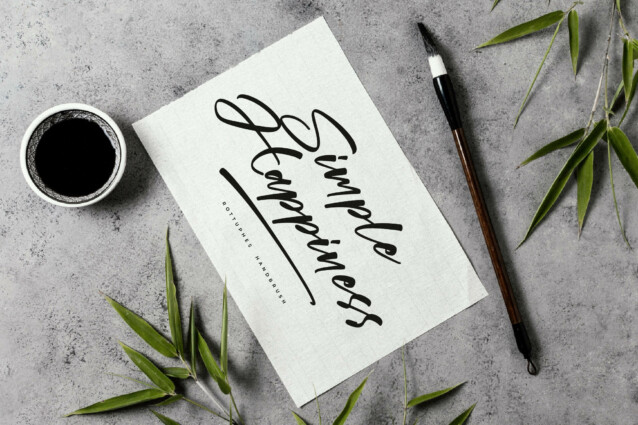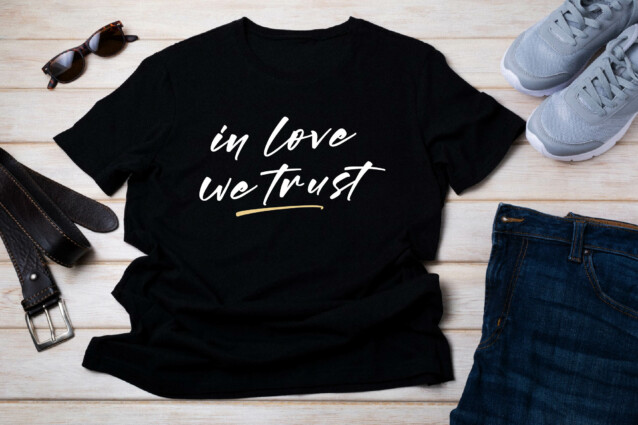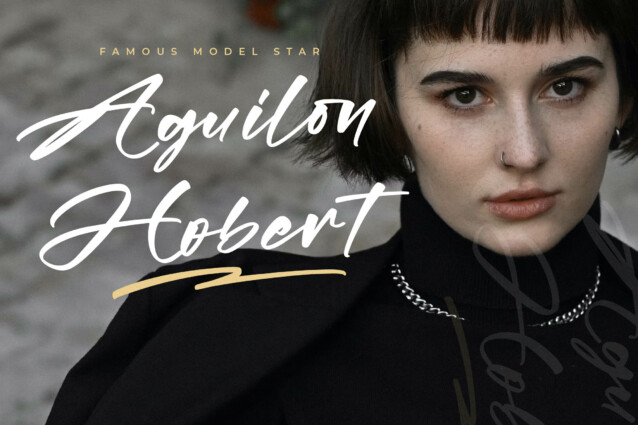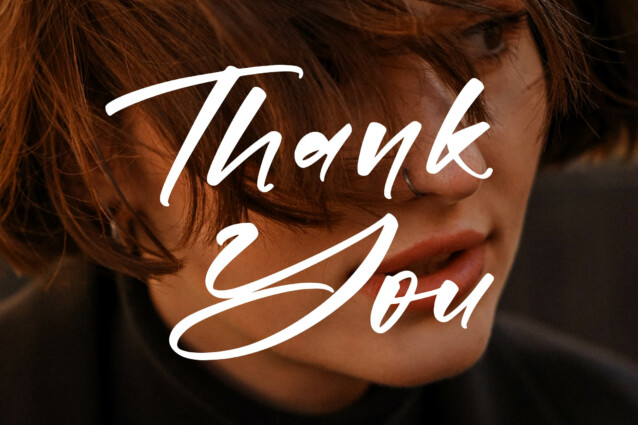
Rottuphes Font
Rottuphes Font is a handbush signature font, suitable for any projects such as: logos, branding projects, homeware designs, product packaging, mugs, quotes, posters, shopping bags, t-shirts, book covers, name card, invitation cards, greeting cards, label, photography, watermark, special events, and all your other lovely projects that need a beautiful script taste.